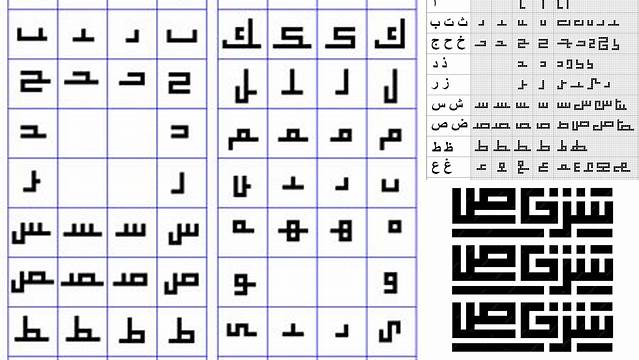
Square Kufic Font: Free Downloads & Usage Guide
If you're diving into the world of Islamic calligraphy or seeking a unique geometric typeface, Square Kufic font is a fantastic choice. Guys, this ancient script, also known as Kufic Murabba, boasts a distinct angular form that adds a touch of historical elegance and geometric precision to any design. In this article, we'll explore the history and characteristics of Square Kufic, guide you on where to find free downloads, and offer tips on how to use it effectively in your projects. Get ready to explore the beauty and versatility of this amazing font!
What is Square Kufic Font?
Square Kufic font, a variant of the early Kufic script, is characterized by its bold, geometric structure where letters are formed primarily from squares and straight lines. This unique design makes it highly recognizable and visually striking. Imagine the letters constructed like building blocks, each one perfectly fitted together to create a cohesive and impactful word. The simplicity and clarity of Square Kufic lend it a modern feel despite its historical roots, making it a favorite for designers looking to blend tradition with contemporary aesthetics. This font was developed centuries ago, specifically around the 12th century, and quickly became a staple in architectural inscriptions, coinage, and even manuscripts. One of the most famous examples of Square Kufic is seen in the intricate brickwork of Islamic buildings across Central Asia, particularly in Uzbekistan, where the script is seamlessly integrated into the architectural designs, creating breathtaking visual patterns. Its use isn't just limited to religious texts or historical settings; designers today are drawn to its geometric charm and use it in logos, posters, and digital art, ensuring this timeless script continues to thrive in the modern world. So, if you're looking to add a touch of historical depth and geometric elegance to your projects, Square Kufic font is definitely something you should explore!
The History and Significance of Square Kufic
The historical significance of Square Kufic is deeply rooted in the development of Islamic calligraphy. Originating in the city of Kufa, Iraq, this script emerged as one of the earliest forms of Arabic calligraphy. The transition to the squared form occurred as calligraphers sought to adapt the script for architectural purposes, particularly for inscriptions on buildings and mosques. The rigid, angular nature of Square Kufic allowed it to be easily integrated into tilework, brickwork, and other architectural elements. Think about the challenges of creating flowing, cursive scripts on a large scale using materials like brick or stone; Square Kufic’s geometric structure offered a practical solution. The script’s strong visual presence made it ideal for conveying religious messages and architectural statements. Over time, Square Kufic became synonymous with Islamic art and architecture, adorning mosques, palaces, and other significant structures across the Islamic world. Its geometric simplicity allowed for complex patterns and designs, making it a favorite for decorative purposes. For example, you can find stunning examples of Square Kufic in the intricate tilework of the Shah-i-Zinda necropolis in Samarkand, Uzbekistan, where the script is seamlessly woven into the architectural fabric. Its widespread use in various regions underscores its cultural importance and its role in shaping Islamic visual identity. So, when you use Square Kufic, you're not just choosing a font; you're connecting with a rich artistic heritage that spans centuries.
Key Characteristics of Square Kufic
Understanding the key characteristics of Square Kufic is essential for appreciating its unique aesthetic and using it effectively in your designs. The most defining feature of this script is its geometric structure. Unlike more fluid, cursive Arabic scripts, Square Kufic is composed almost entirely of straight lines and right angles. Imagine the letters built from squares and rectangles, fitted together like a mosaic. This angularity gives the font a strong, architectural feel, making it both visually striking and structurally sound. Another notable characteristic is its high degree of legibility, especially in large-scale applications. The clear, geometric shapes make the letters easily distinguishable, even when viewed from a distance. This is why Square Kufic was so widely used in architectural inscriptions, where readability was crucial. Furthermore, the font's modular nature allows for intricate and repetitive patterns, which are often seen in Islamic art and design. Calligraphers and designers could manipulate the basic geometric units to create complex and visually appealing compositions. Think of the possibilities: repeating a word or phrase in a square format to create a pattern, or using the font as a decorative element in a larger design. The simplicity of Square Kufic also means it can be adapted and stylized in various ways, giving designers a lot of creative freedom. You might see variations with thicker or thinner strokes, or with added decorative elements. So, whether you're drawn to its geometric purity or its potential for intricate designs, understanding the characteristics of Square Kufic will help you leverage its unique qualities in your projects.
In conclusion, Square Kufic font is a remarkable typeface that blends historical significance with geometric artistry. Whether you're a designer, calligrapher, or simply someone who appreciates unique fonts, Square Kufic offers a wealth of creative possibilities. By understanding its history, characteristics, and best practices for usage, you can effectively incorporate this font into your projects, adding a touch of elegance and tradition. Remember to download fonts from reputable sources, respect licensing agreements, and experiment with different applications to truly unlock the potential of Square Kufic. So, go ahead, explore the world of Square Kufic and let your creativity flow! Guys, you've got this!